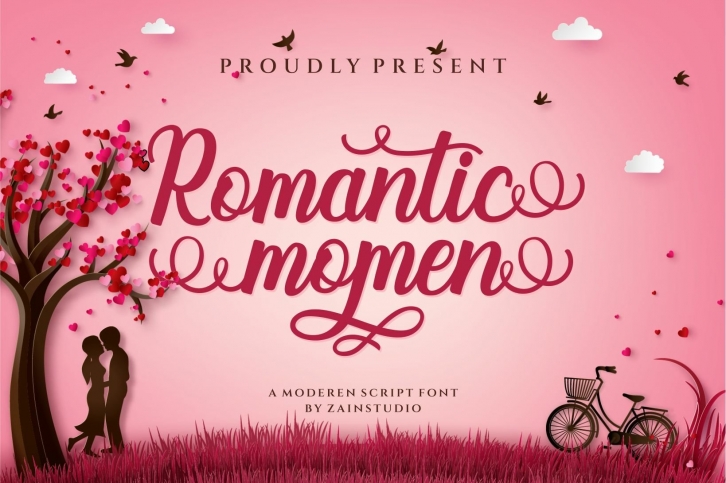
Romantic Momen is a great font that was designed by ZainStudios. Imagine the amount of combinations you can create using this font! The archive is 6.24 MB and it was released on January 26, 2021. Romantic Momen looks beautiful on wedding invitations, greeting cards, logos, posters, labels, t-shirt designs, logos, business cards and is perfect for use in ink or watercolor works, fashion, magazines, packaging and food menus, children's books and more!